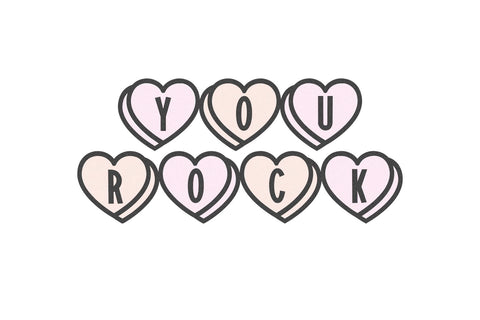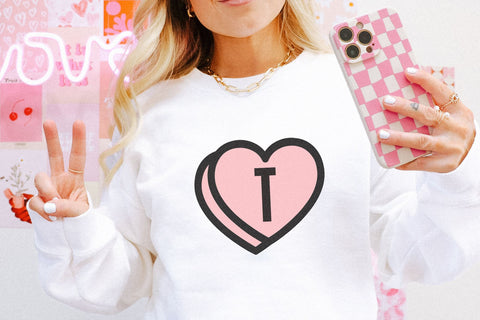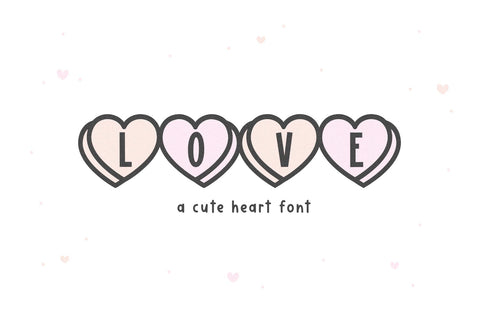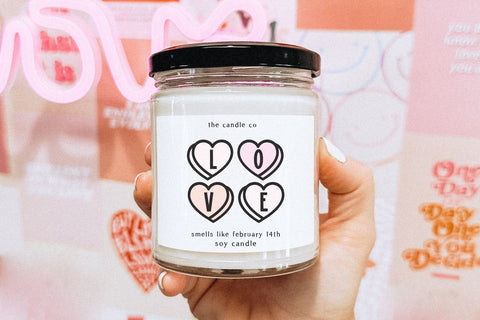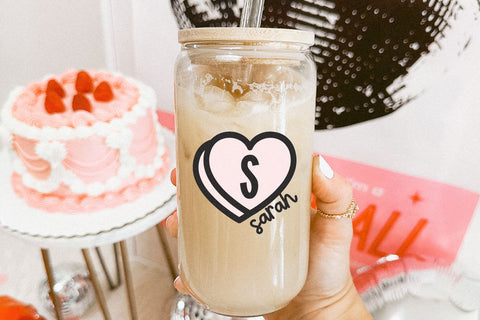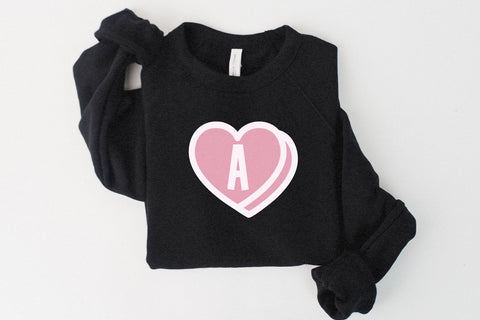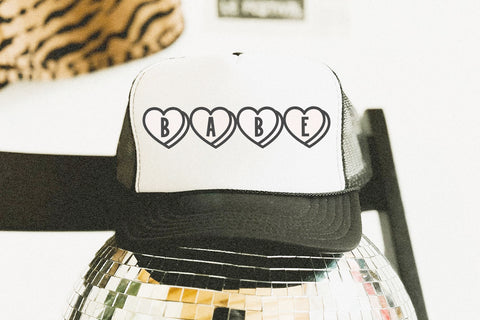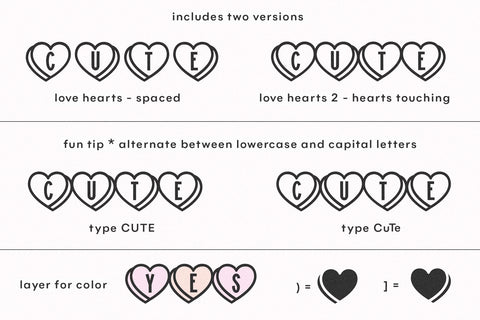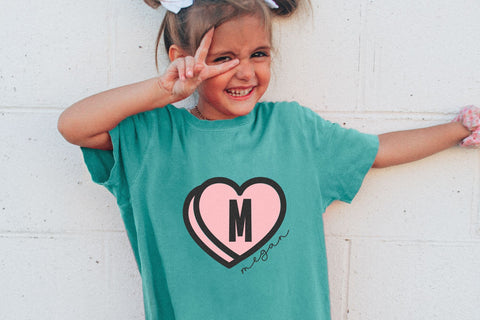
Love Hearts - Cute Heart Font
Love Hearts is a cute heart font perfect for your Valentine's Day designs!
Use this font for stickers, shirts, cricut projects, procreate, quotes, invitations, cards, hats, mugs and more!
This is an all caps font - but capital and lowercase letters alternate between heart positions.
This is NOT a color font - you can add your own color by using photoshop/illustrator or layering your letters over the solid background keys. These keys are the right parenthesis ) and the right bracket ]